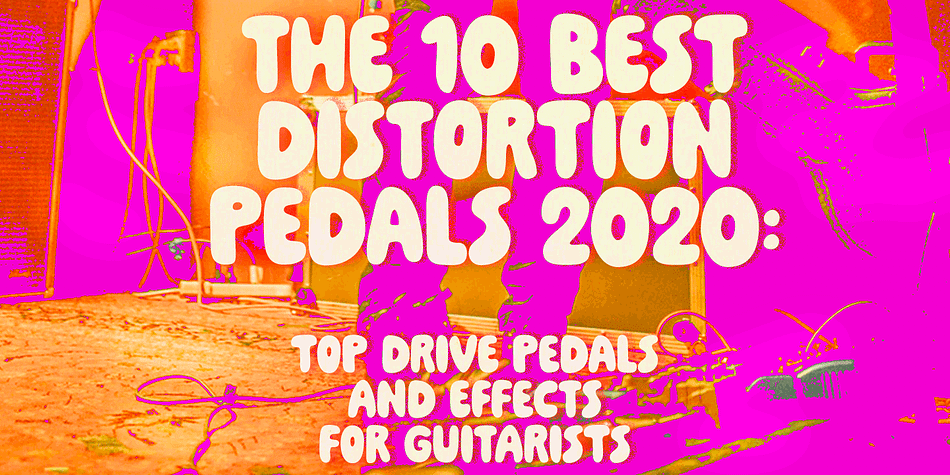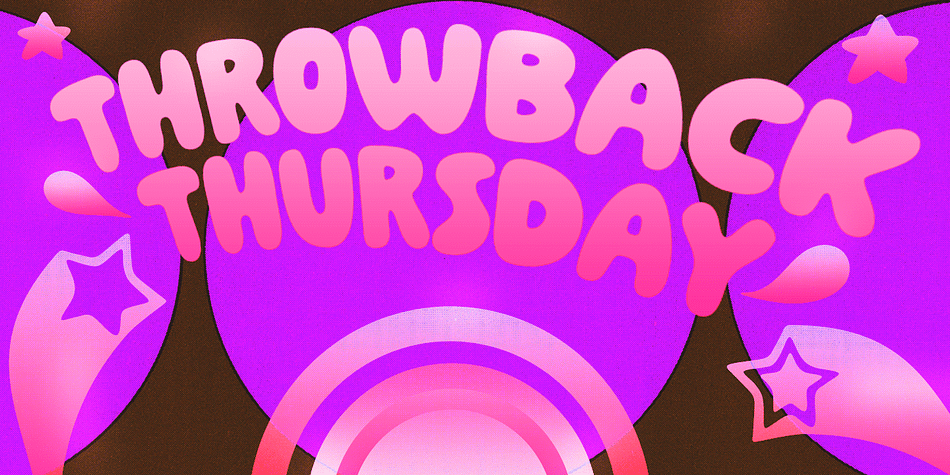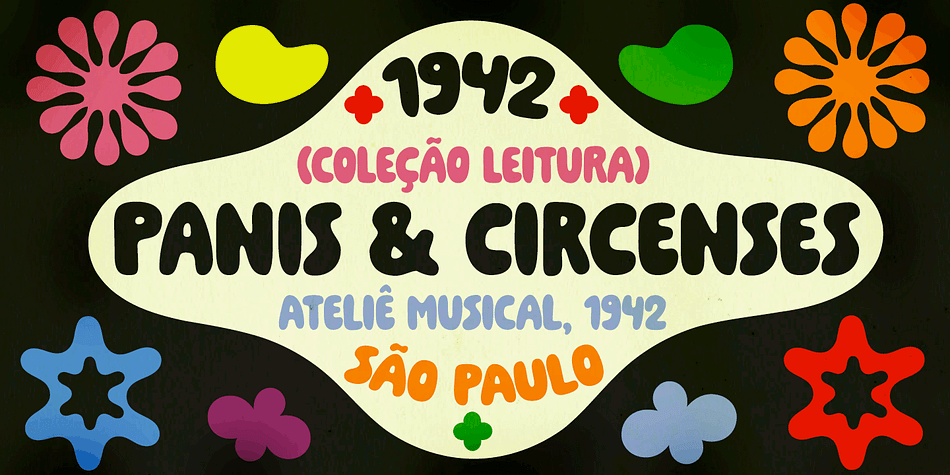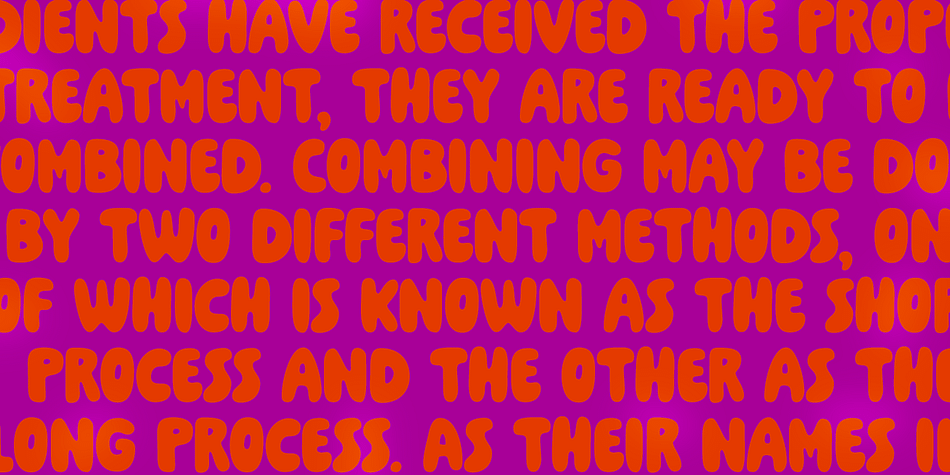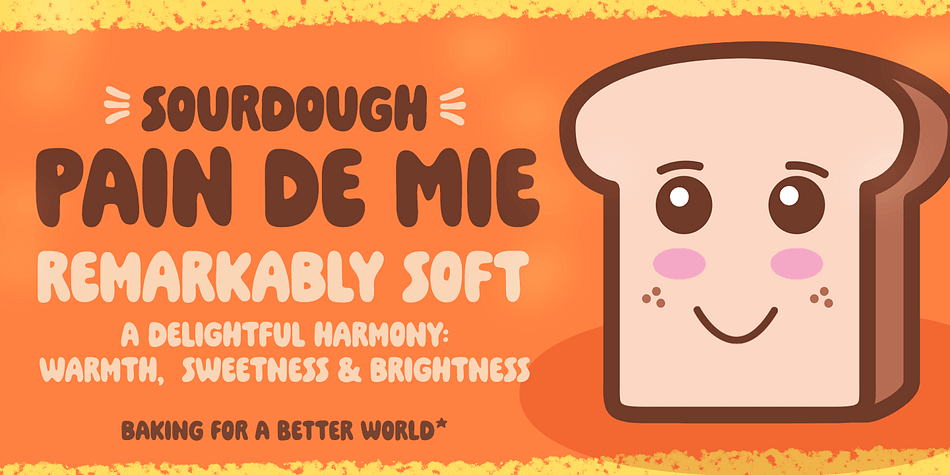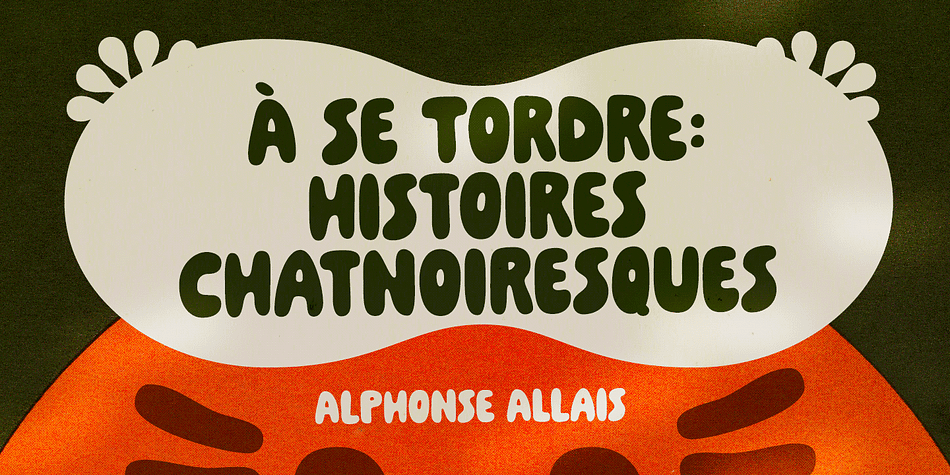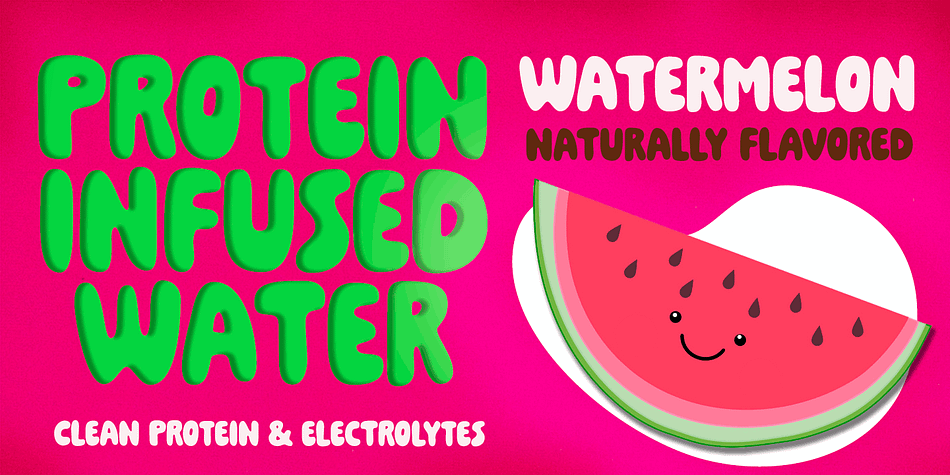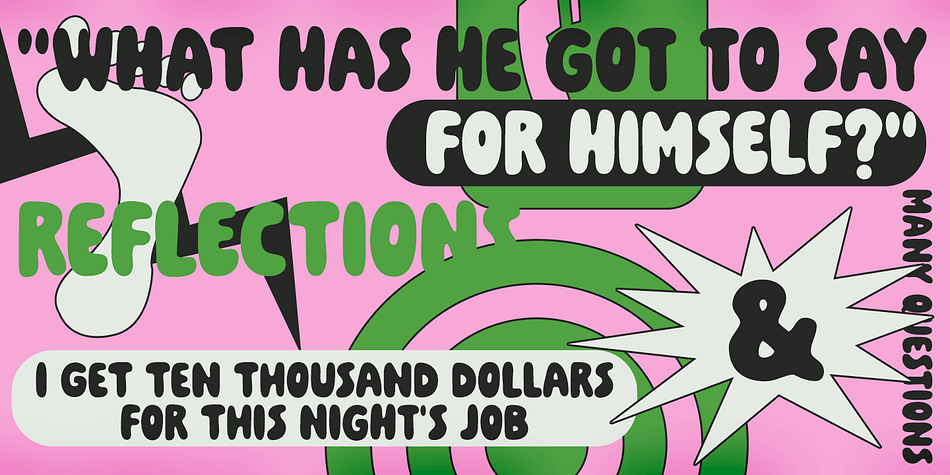
Designed by Ricardo Marcin and Erica Jung, Pain de Mie is a hand display font published by PintassilgoPrints.
Pain de Mie is a soft font, friendly and sweet, kinda creamy, kinda bubbly.
It’s an all caps font with 2 different glyphs for each letter: easily access these through the keyboard upper or lower cases keys. Make them cycle with OpenType Contextual Alternates. There’s also a handful of drawings to add an extra charm here and there. Reach these via OpenType Ornaments or pick your choices through a glyphs palette.
Like a fresh loaf of bread, Pain de Mie goes well in so many ways. Give it a try!